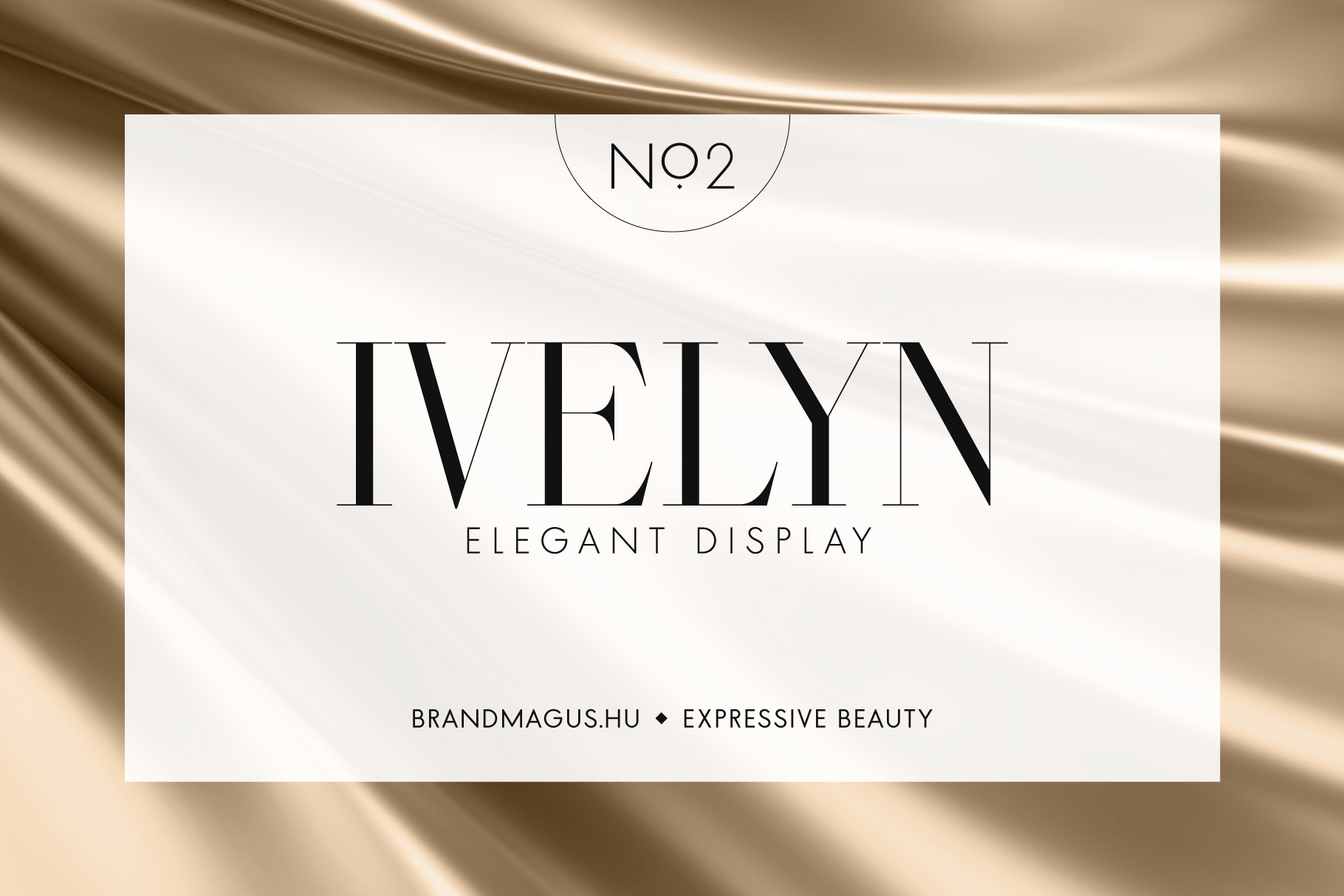
Ivelyn - Elegant Display Font
-- Elegant - Minimal - Classic --
Ivelyn is an elegant, minimal, classic and sophisticated display font family.
Our dream was to design a font family that we can use on a multiple project. A really exciting elegant one.
Ivelyn includes two fonts: two weights
Ivelyn Thin - Simple and elegant touch Ivelyn Light - The mid ground between to confident and elegant FEATURES Two weights / Numbers & Punctuation / Extensive Language Support
USE Ivelyn is a good choice for any branding project. Use it for logos, magazines. We mainly recommend for elegant approach works. Thankfully for the two weights you can easily play with feelings and emotion that you want to broadcast.